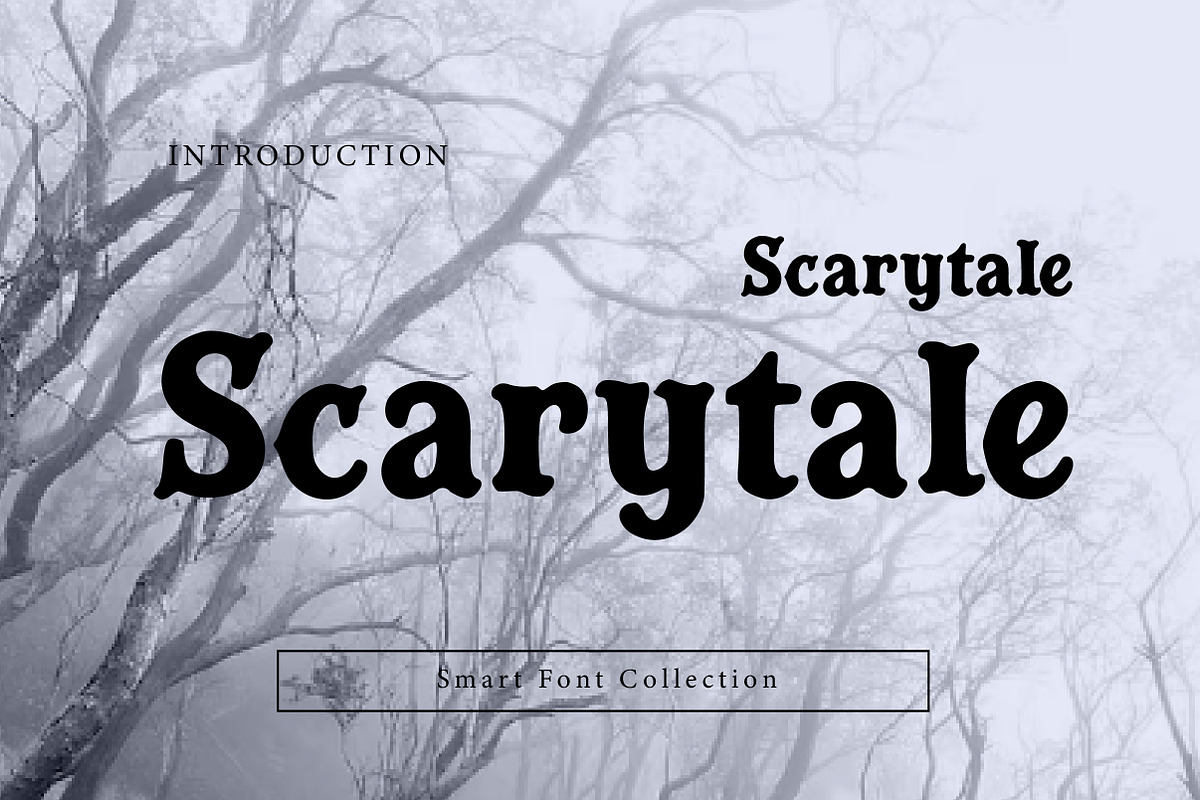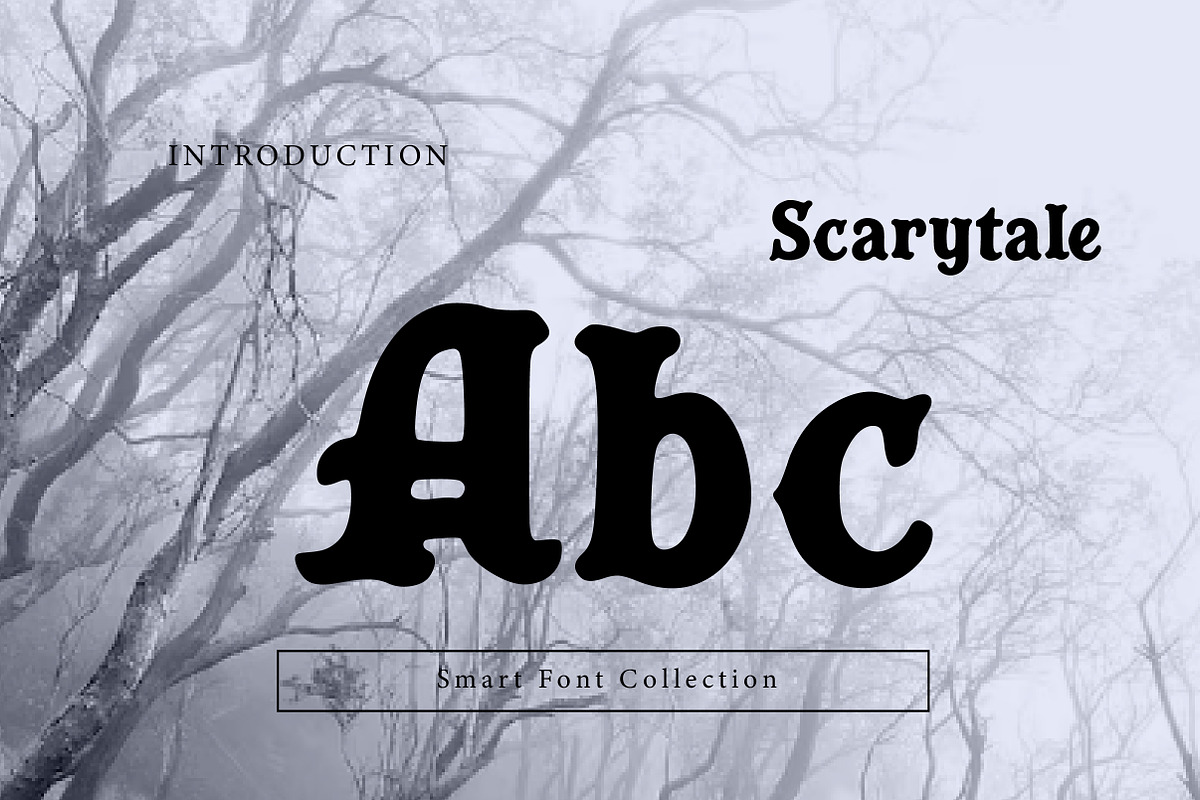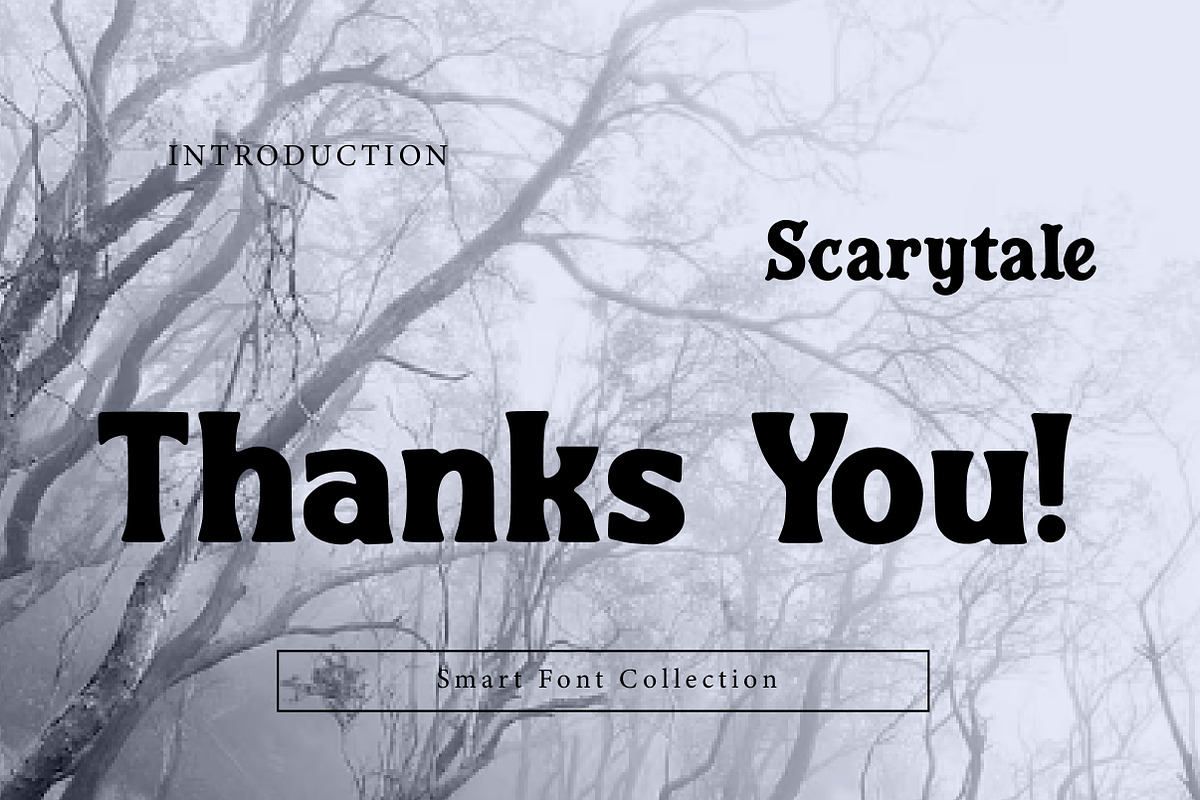
Scarytale
Scarytale is a bold decorative display font with a spooky fairytale twist. Combining playful curves with slightly eerie details, this font creates the perfect balance between storybook charm and Halloween horror. It’s eye-catching, dramatic, and ideal for designs that need a magical yet creepy vibe.
Perfect for Halloween projects, spooky invitations, horror posters, kids Halloween crafts, stickers, t-shirt designs, book covers, party decorations, themed branding, social media graphics, and gothic-style quotes. Scarytale adds a fun haunted atmosphere while staying readable and bold.
Perfect for: Halloween branding, spooky merchandise, fairytale horror themes, children’s spooky books, and seasonal designs.